2025 Sandoll Saisiot: Type Conference, Our Unfinished Inquiry
On October 18, Sandoll Saiesiot: Type Conference marked its third edition. Under the theme Those Who Question, the conference provided a meaningful opportunity to share the thoughts and experiences cultivated over time in each participant’s respective field, as well as the outcomes of their ongoing inquiries. The Q&A sessions held after each session clearly reflected the attendees’ strong engagement. With more than 200 questions raised in total, the venue was filled with an intense spirit of inquiry.
There were many insightful questions that could not be fully addressed on site. Following the event, Sandoll reached out to the speakers once again to revisit these questions and listen to the ideas and reflections that could not be continued during [Saisiot 2025].
Sandoll type designer, Jang Gaseok
― Q1: You mentioned that 「SD Choyang」 is a font that has been reinterpreted in a contemporary way based on an original source. When drawing from the past, did you have any criteria for distinguishing where ‘reference’ ends and where ‘your own interpretation’ begins?
This is a very difficult question—it feels like something I would need to research more deeply and write a paper about. In fact, I am still continuously thinking about how to draw that line. In the case of 「SD Choyang」, I tried to understand, from the perspective of a font designer, the subtle boundary between the sense of burden and the sense of appeal felt in the original letterforms. After first understanding why these letters were made the way they were—the intention of the type and its structural context—I adjusted the degree of form so that it was not overly excessive, using overall design unity and balance as guiding criteria, in order to allow 「SD Choyang」’s own character to emerge. Elements from the original source that felt clearly burdensome were addressed more decisively.
There were also moments when I questioned whether it was appropriate for me to establish such criteria or processes, especially since there are many people who have studied far more extensively than I have. While this process may be somewhat subjective, I believe that, as a font designer, it is precisely these kinds of attempts that lead to the creation of new results.
― Q2: In the case of 「SD Choyang」, you mentioned that it was influenced by traditional writing methods such as yeogipyeongchul. When designing Latin alphabets or fonts for other languages, do you also often find yourself influenced by the writing traditions of those language systems?
Even within sans-serif fonts, there are many different classifications, so expressions derived directly from traditional writing methods are not always prominent. In the case of 「SD Choyang」 Latin, it shares the formal characteristics of Hangul as well as the historical background of the Early Grotesque category.
The Latin of 「SD Choyang」 was designed by Jung Taeyoung. The contrast in stroke weight in diagonal letters such as M, V, and X was designed to remain subtly present, similar to the contrast applied in Latin calligraphy and Serif styles. The rounded terminals seen in letters such as Q, r, and f also reflect writing-based characteristics more strongly than those found in contemporary neo-grotesque sans fonts.
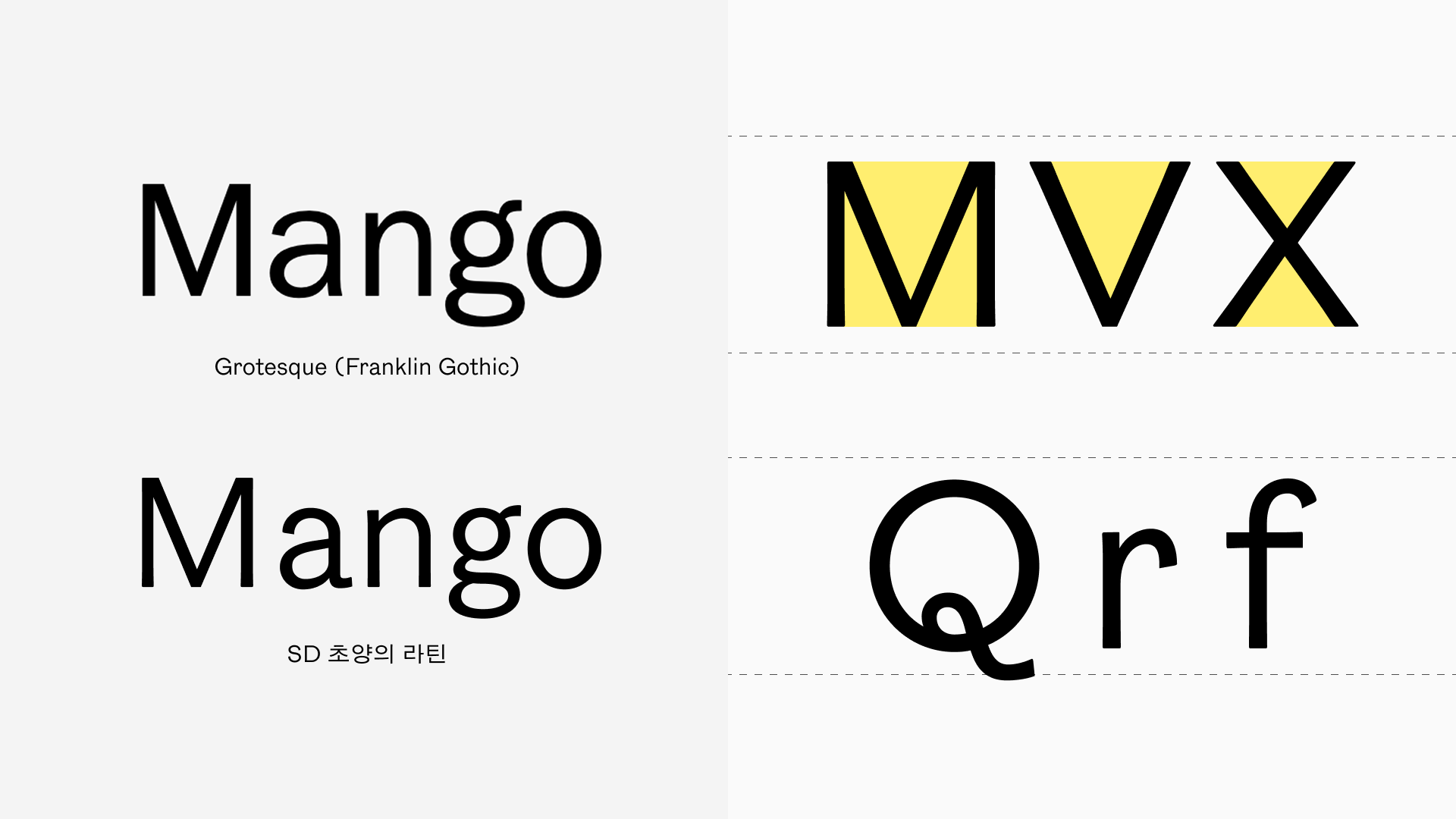
「SD Choyang」 Latin
― Q3: As a non-native Korean speaker, were there any difficulties or interesting experiences you encountered when designing Hangul fonts?
I was able to learn Hangul writing methods to some extent while studying in Korea and learning the Korean language. In terms of expression, I was already somewhat familiar with Hangul, as it belongs to the same East Asian cultural sphere where similar tools, such as brushes, have traditionally been used. However, no matter how much Korean I learned, it remained difficult to grasp the impressions that emerge from certain structures when designing Hangul fonts. Since I did not grow up in Korea, there seem to be cultural and generational differences.
For example, when I first saw the Ahn Sang-soo font, the geometric tal-nemoteul (탈네모틀) structure felt extremely fresh and modern to me. However, after listening to other Koreans, I learned that the Ahn Sang-soo font is considered a radical font from the 1990s, and rather than feeling contemporary, it carries a retro sensibility that evokes that period. Because I lacked this cultural and historical background, I initially found it somewhat difficult to grasp the impressions produced by certain structures when designing Hangul. That is why I wanted to explore projects with a strong historical context, such as 「SD Choyang」, and I believe there is still much for me to learn.
On the other hand, there were also many interesting experiences from my perspective as a foreigner. For example, the ssang-gieok in the Gaseok font originates from the draft “꼬” character. The short vertical stroke of “ㅗ” collided with the left gieok stroke of the ssang-gieok, so it was drawn as a fully curved line to yield space, while the right gieok, for the same reason but in the opposite direction, was drawn as a completely straight line. Other Koreans found this very strange, but I thought it worked well. If explained logically, it could be persuasive, and I felt that what we perceive as ‘strange’ often comes from visual unfamiliarity rather than something being definitively right or wrong. Using the excuse that I am a foreigner who does not fully know, I leaned toward a slightly more distinctive form.
The ssang-gieok(ㄲ) form in the Gaseok font
― Q4: Lately, I have been strongly feeling the importance of type design. When starting to study it for the first time, what kind of direction or approach would be advisable? What do you think is the most effective way to develop a sense for fonts?
As is always the case, persuasion—both large and small—is essential in every project. Above all, I believe it is important to build mutual trust within the company and among colleagues. When trust has been established, it becomes possible to engage in discussions at a much deeper level.